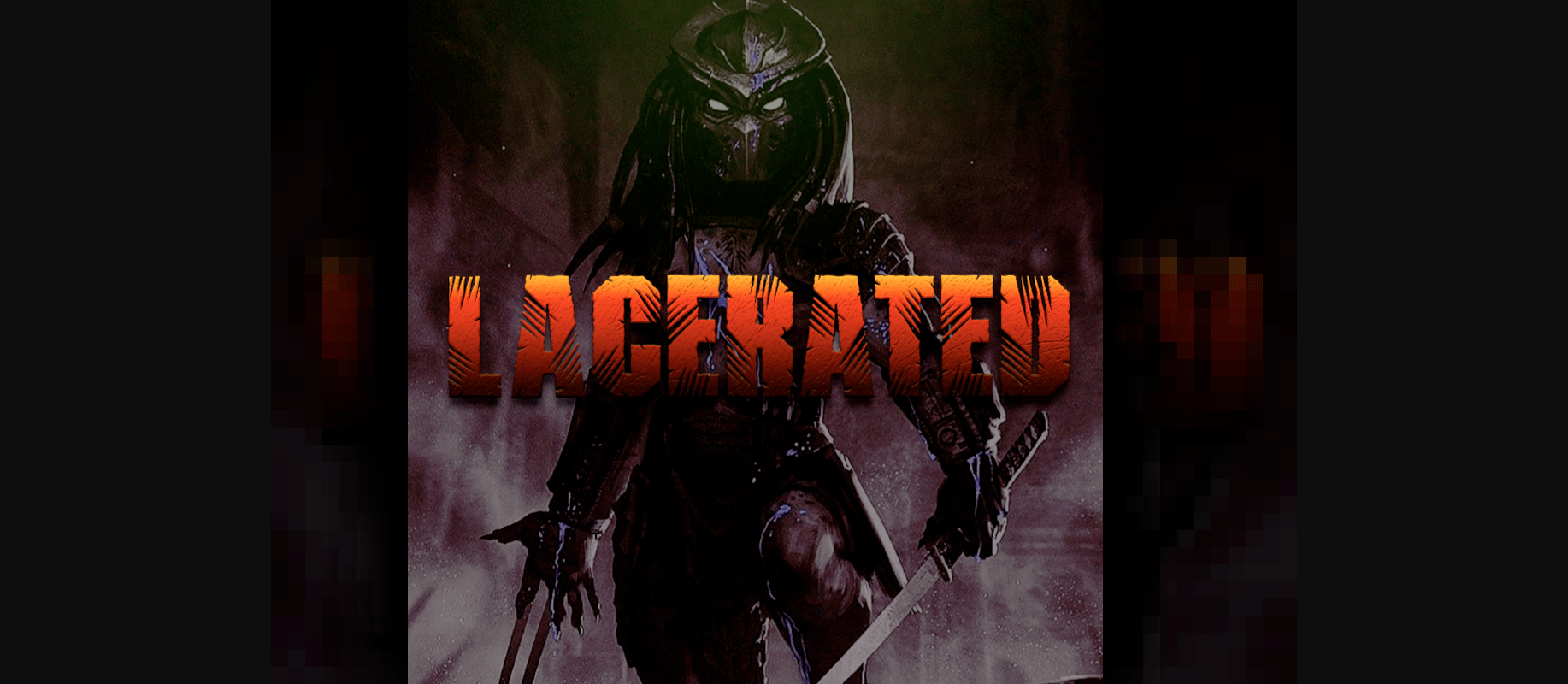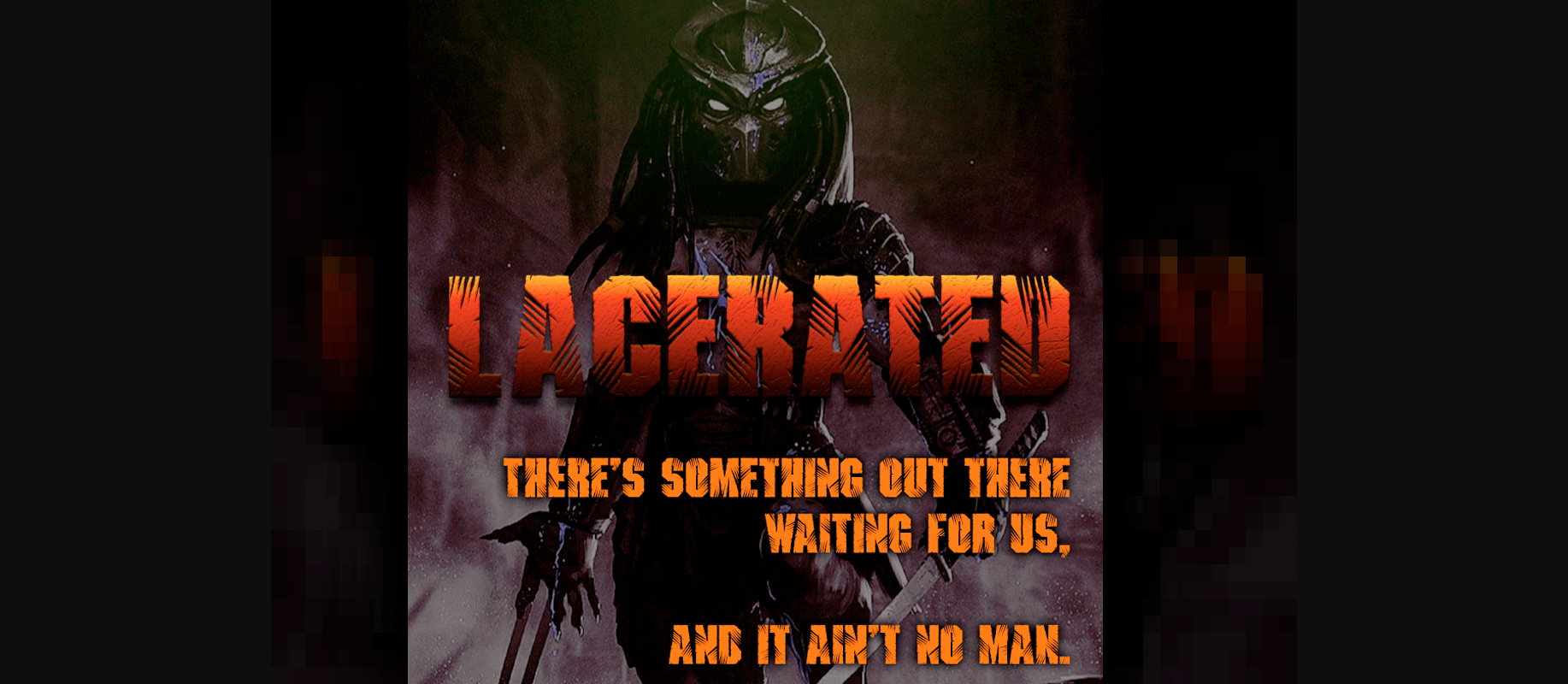
Lacerated Font
About Lacerated Font
A decorative font that looks like it’s been slashed mercilessly with sharp claws. Great at large point sizes.
* If you’re unfamiliar with contextual alternates, they make the typed word look a little more organic with letters substituted for alternates. For example, typing two of the same letter/number will produce different versions of that letter glyph.